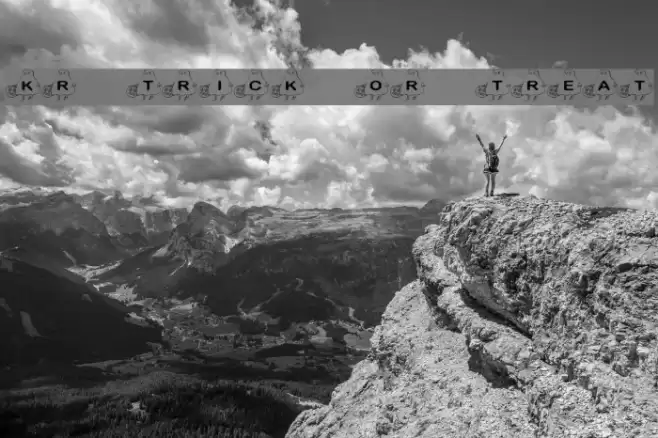
KR Trick Or Treat Font
KR Trick Or Treat Description
This playful and whimsical font features each character embedded within a cartoon ghost figure, adding a fun and spooky element to the text. The letters are bold and clear, ensuring readability despite the decorative ghostly backdrop. Each ghost character holds a pumpkin, enhancing the Halloween theme. The font is perfect for seasonal designs, particularly those related to Halloween or other playful, spooky occasions. The combination of bold lettering and decorative elements makes it suitable for eye-catching headlines or themed invitations.
A playful, Halloween-themed font with letters inside cartoon ghost figures from Uncategorized fonts.
- Proposed Projects: Ideal for Halloween invitations, party flyers, children's event posters, and themed social media graphics.
- Overall Style: Playful, Thematic
- Use Case: Headlines, Themed Invitations